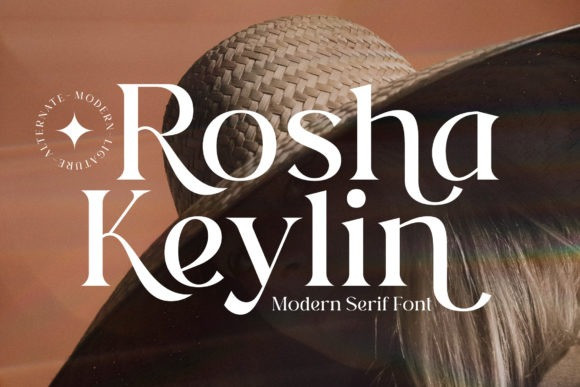
Rosha Keylin Font
Rosha Keylin is a stylish and elegant serif font. It is PUA encoded which means you can access all of the glyphs and swashes with ease! Add it to any of your designs, and enjoy the results!